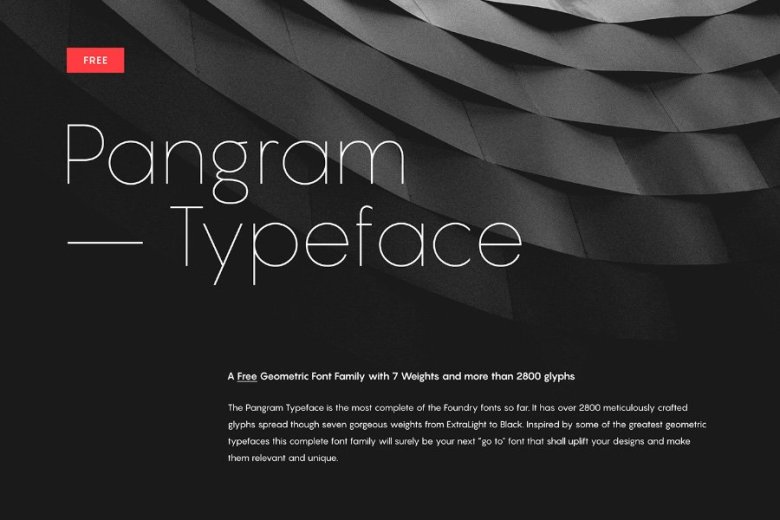
Pangram Sans Font Family
Glad to introduce to your family a new sans-serif font, Pangram Sans was designed and shared by Mathieu Desjardins, a professional designer fonts.
Pangram Sans has over 2800 meticulously crafted glyphs spread though seven gorgeous weights from ExtraLight to Black. Inspired by some of the greatest geometric typefaces this complete font family will surely be your next “go to” font and uplift your designs.